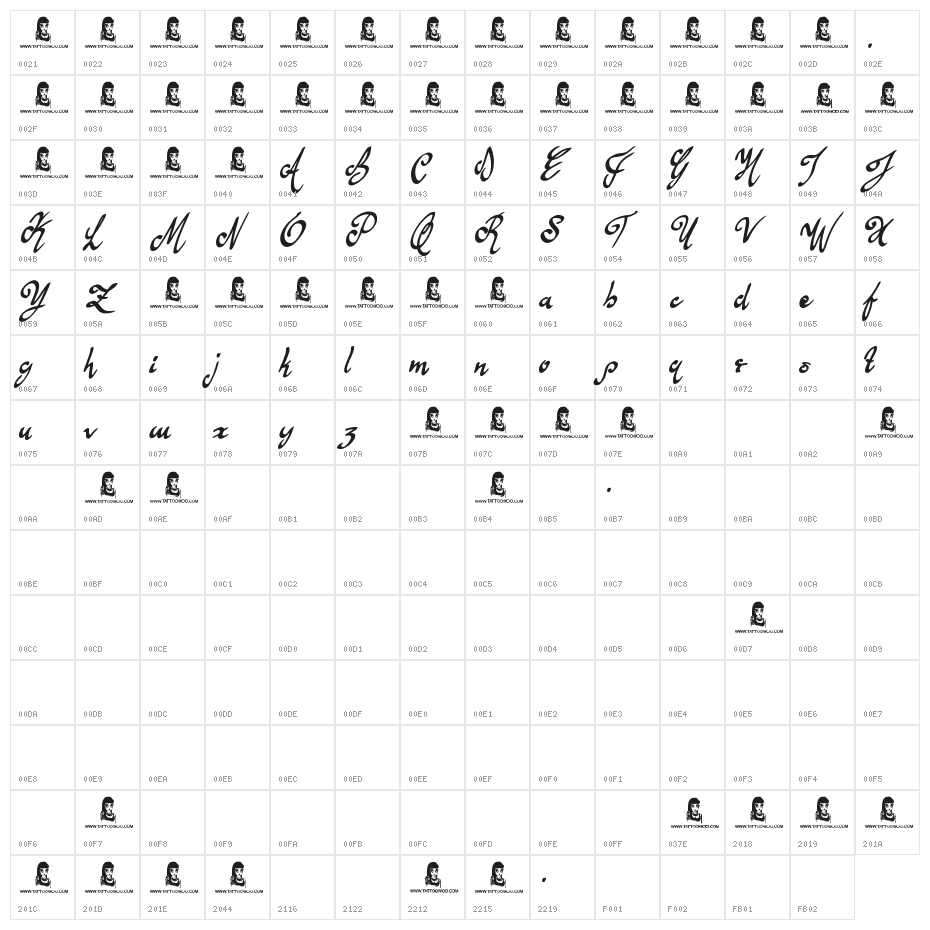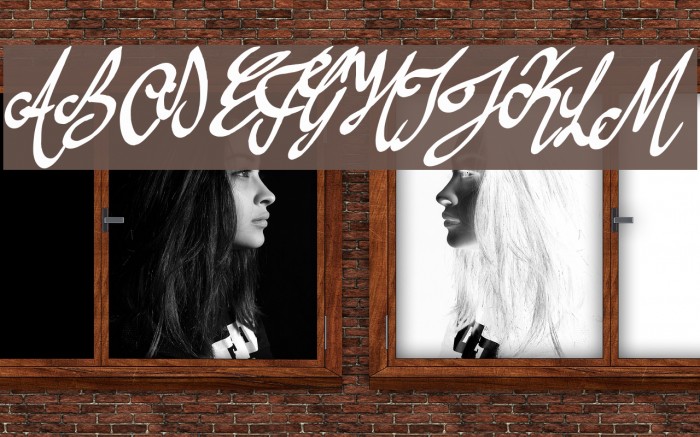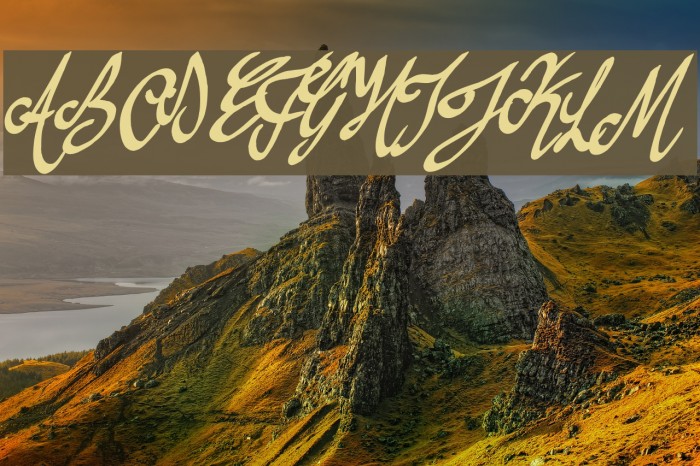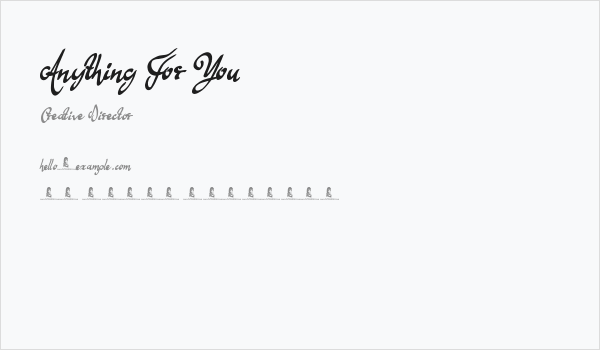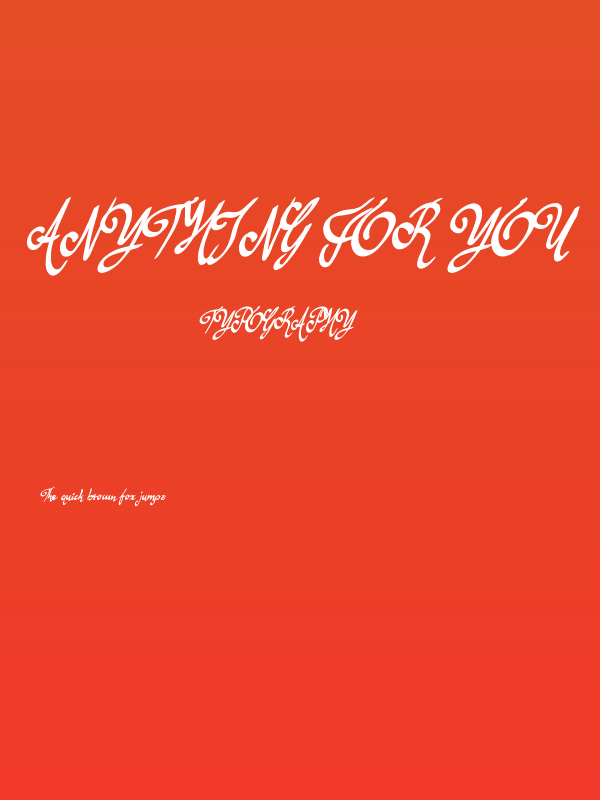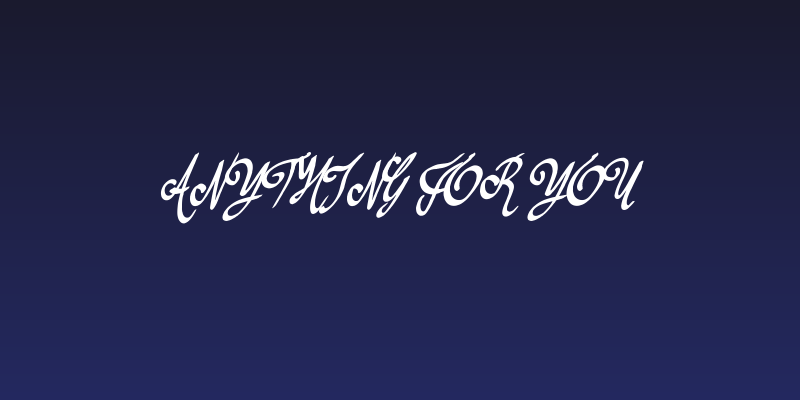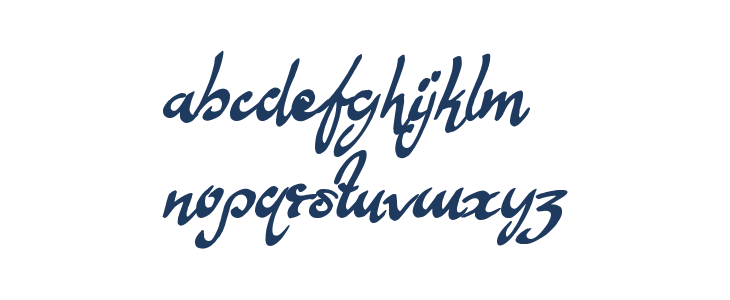
Anything For You Font
✎ Calligraphic
| Kategorien | Calligraphic |
| Anwendungsfall | Logos, Invitations, Artistic projects |
| Vorgeschlagene Projekte | Ideal for wedding invitations, branding, logos, and artistic projects requiring a touch of elegance and sophistication. |